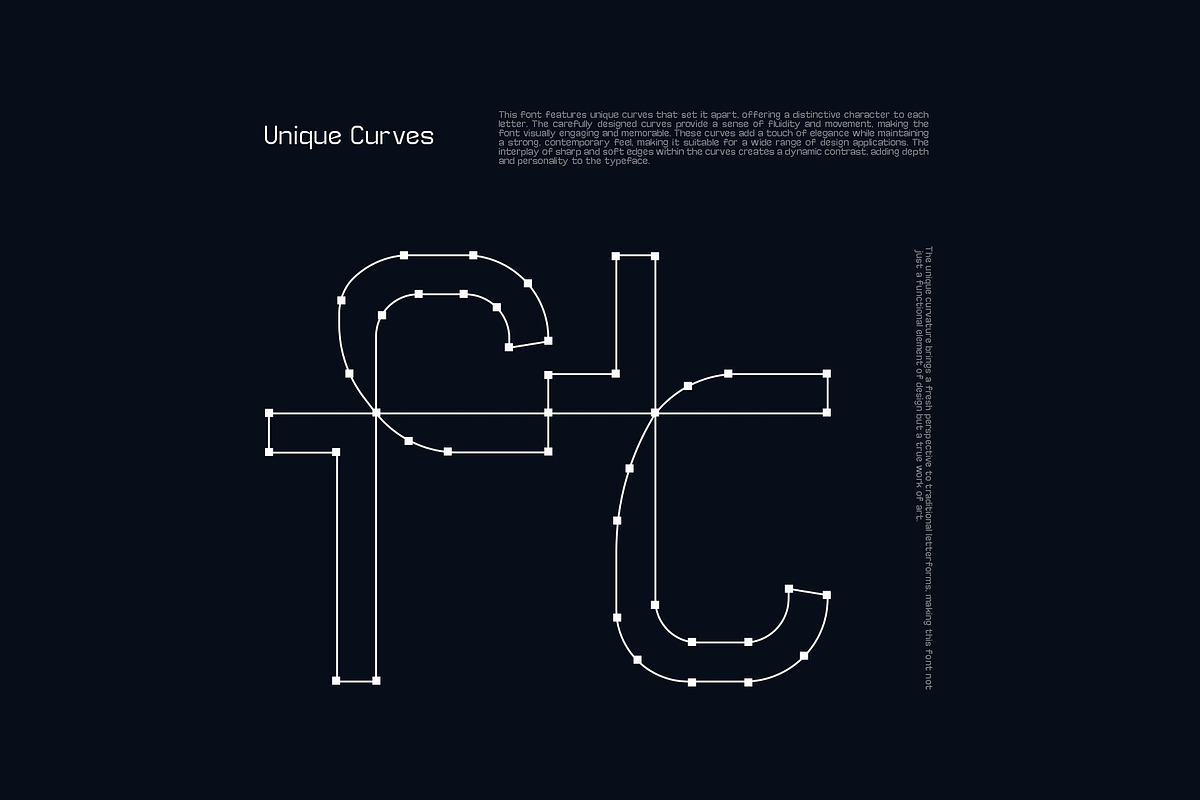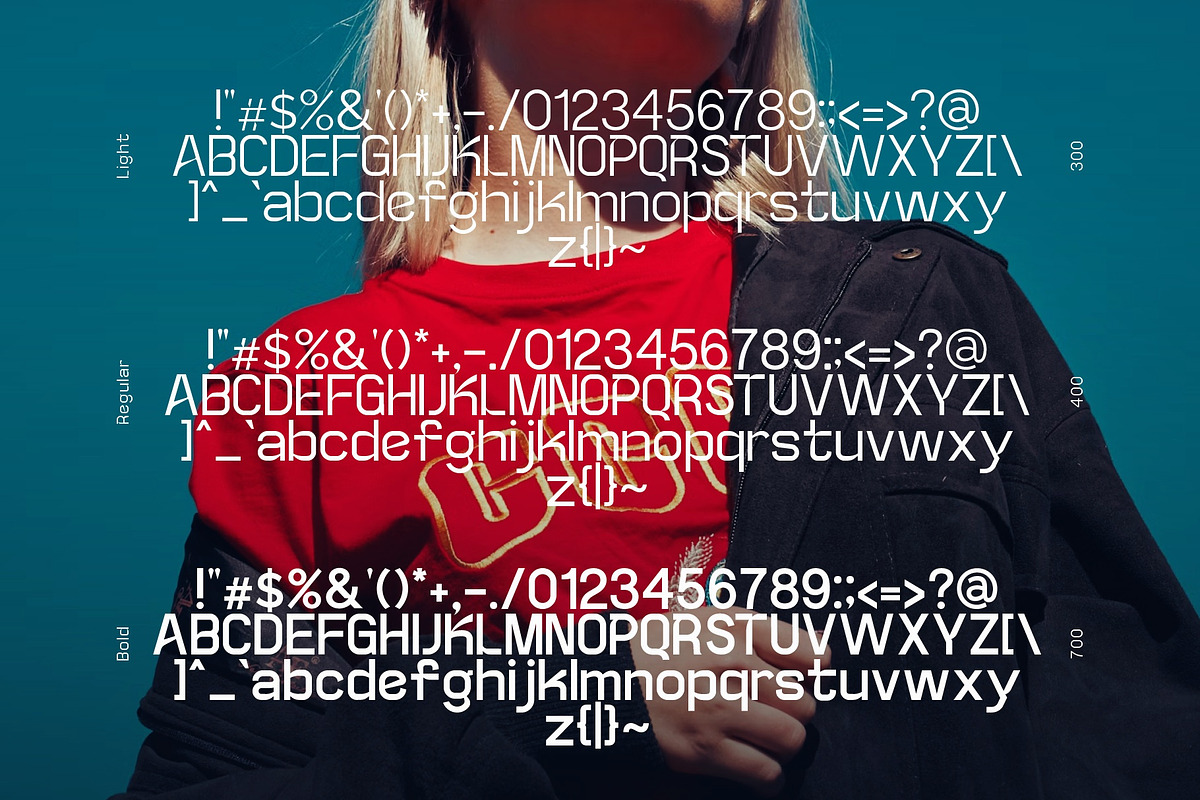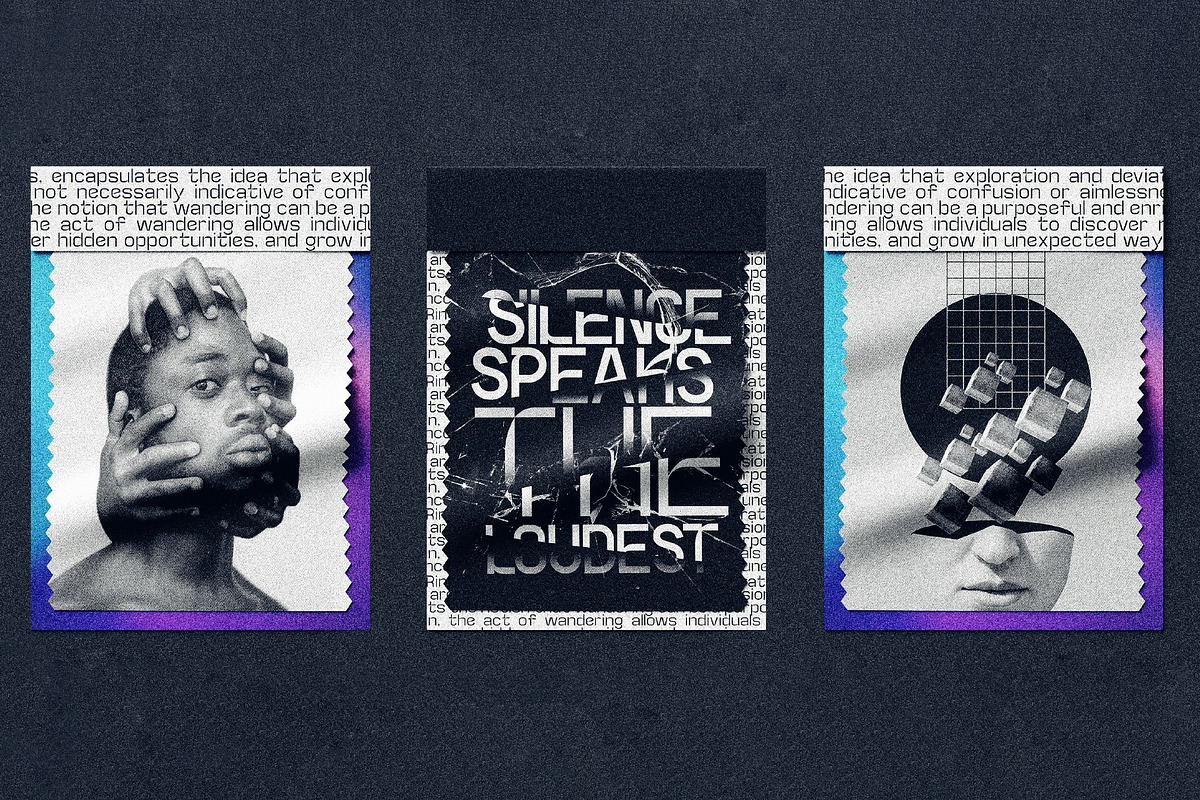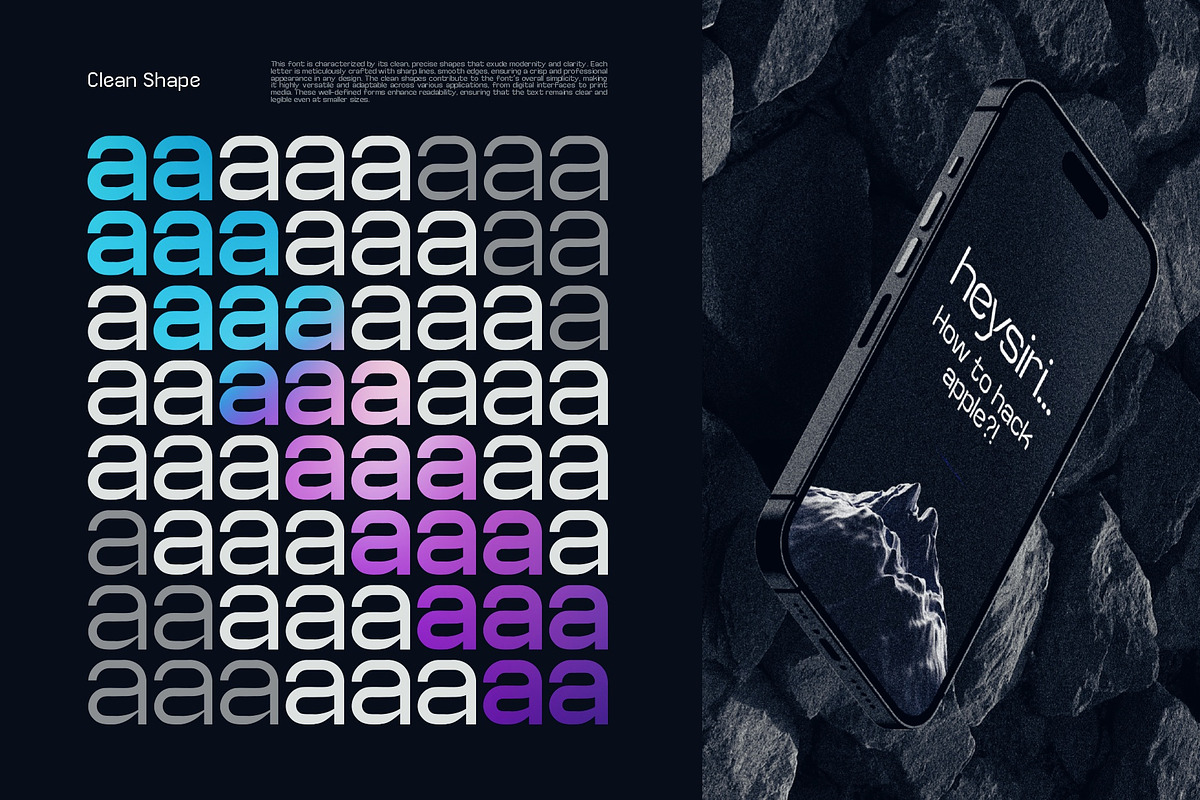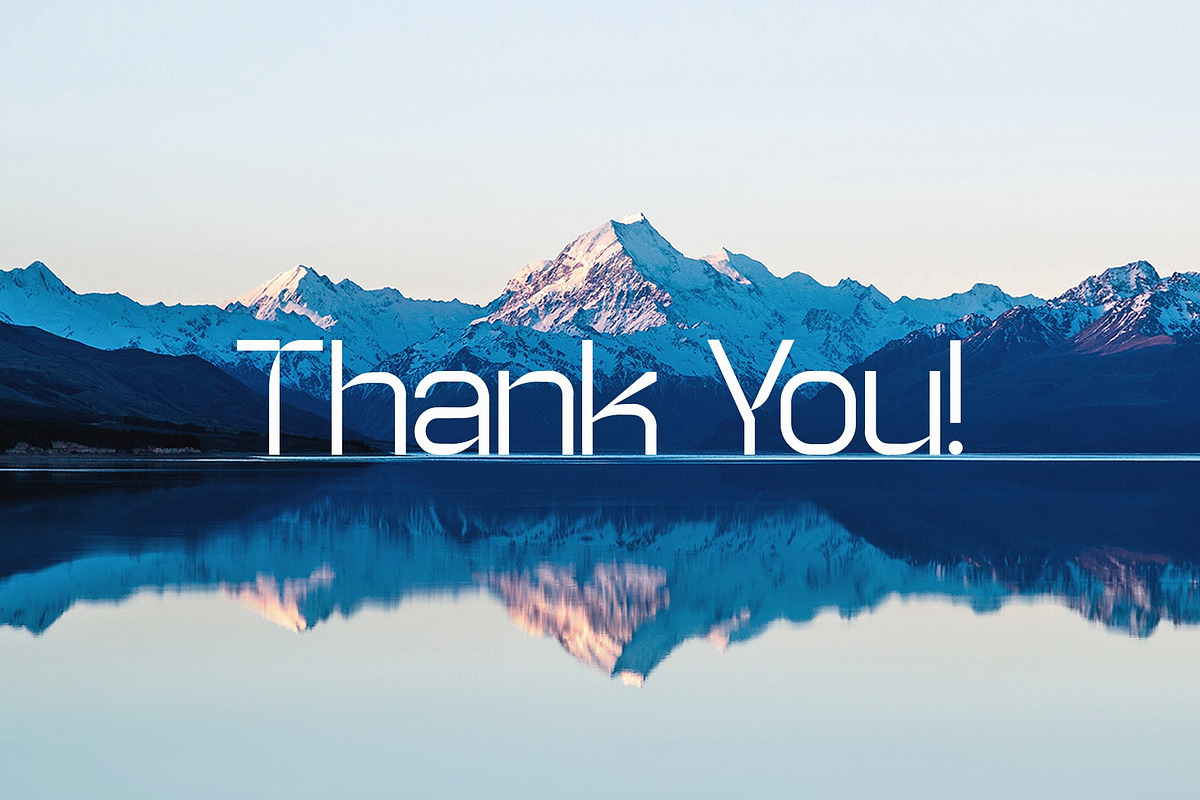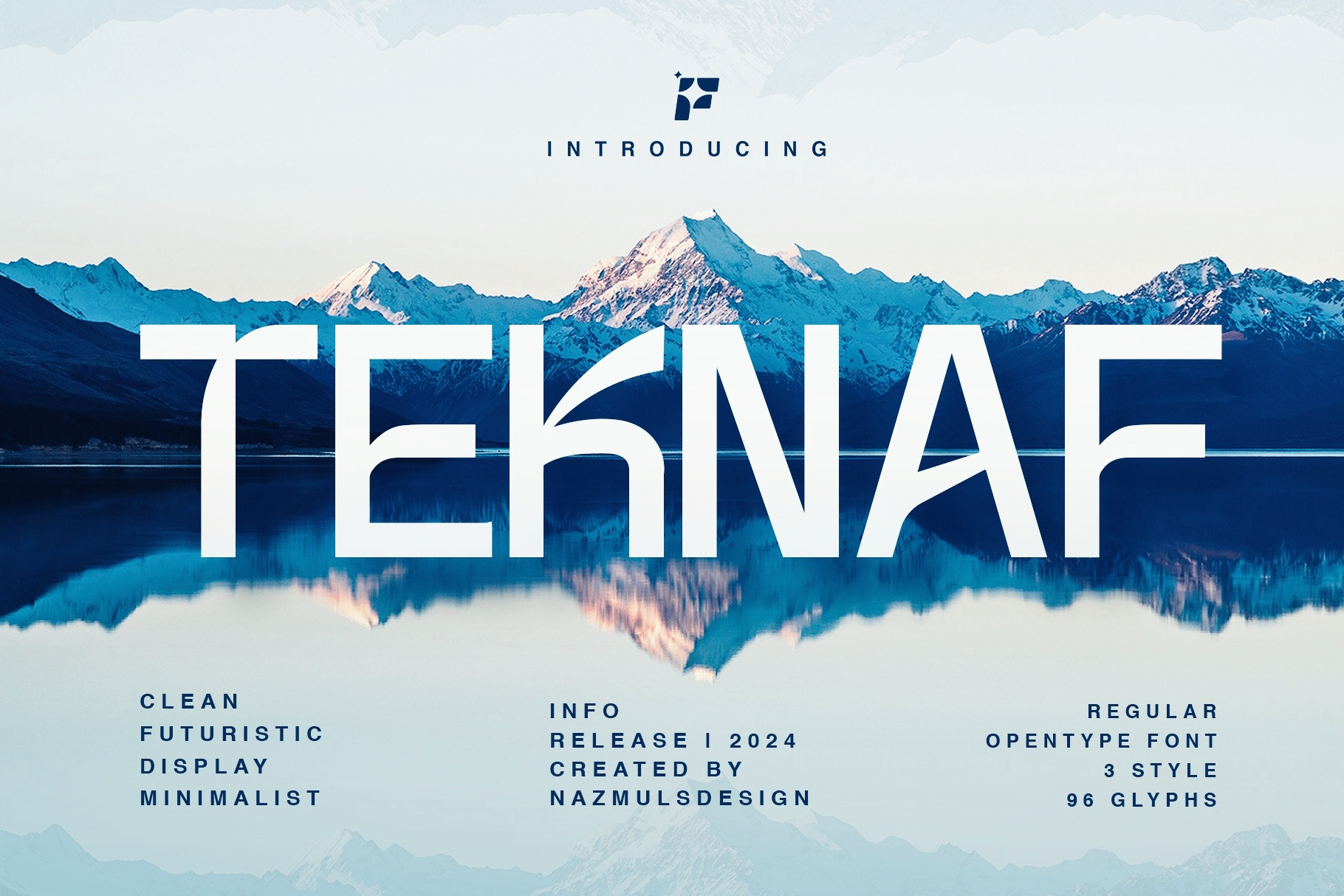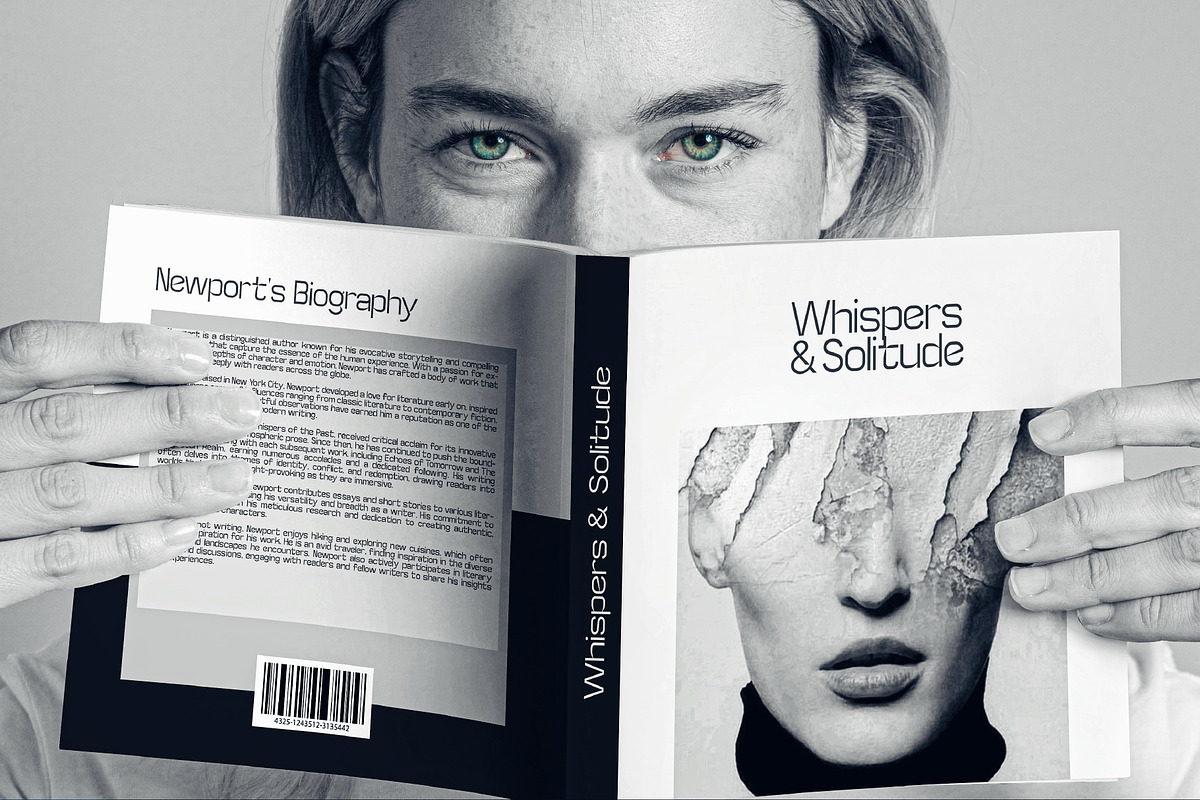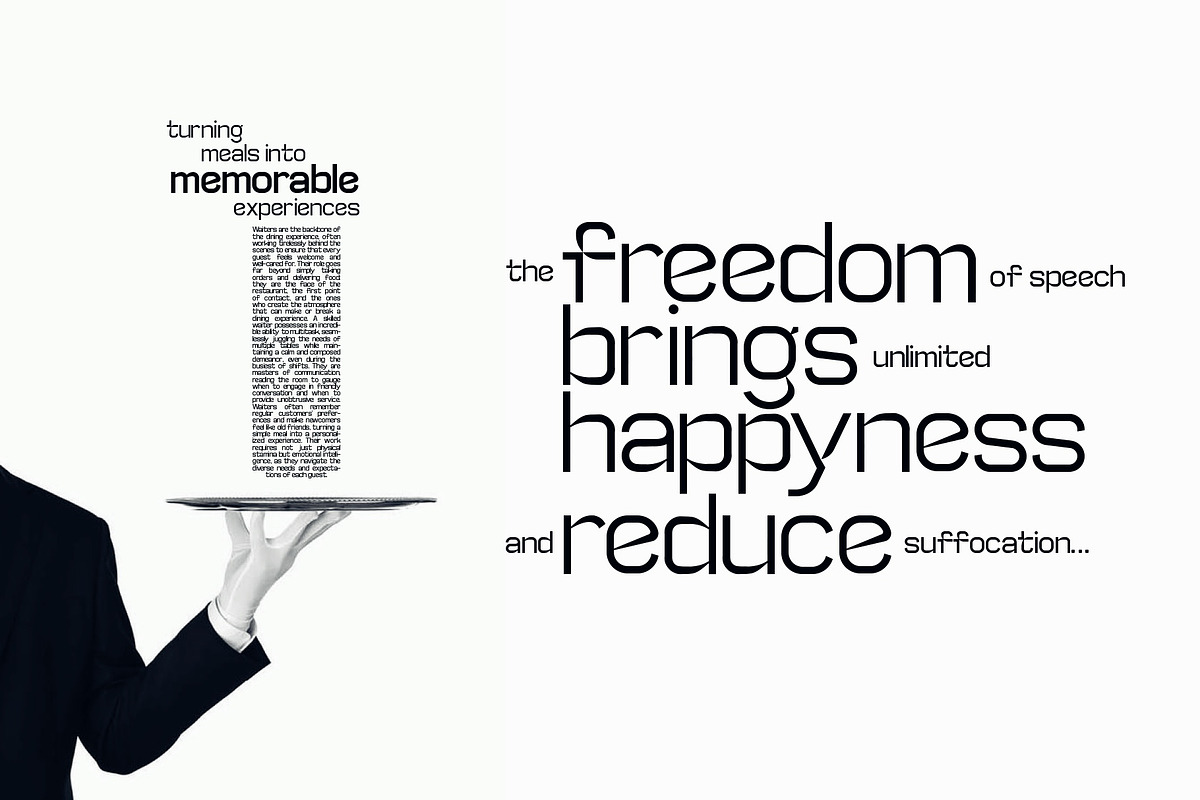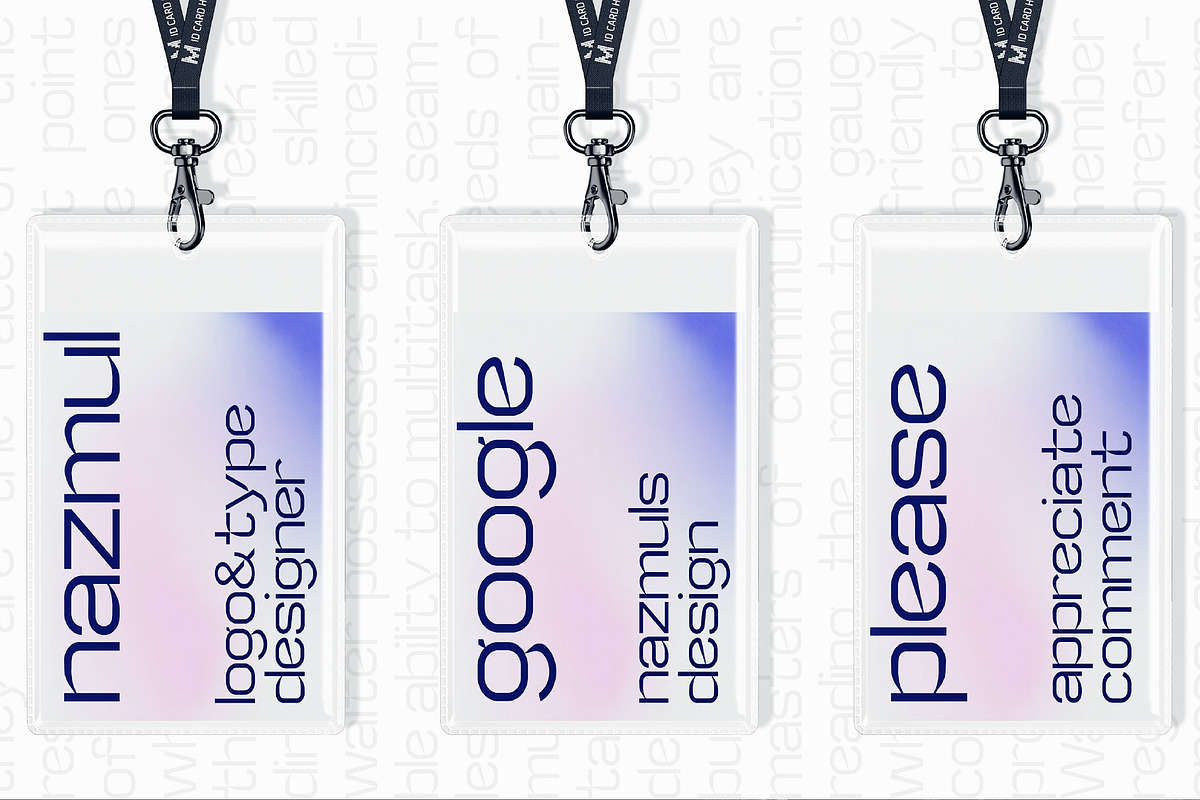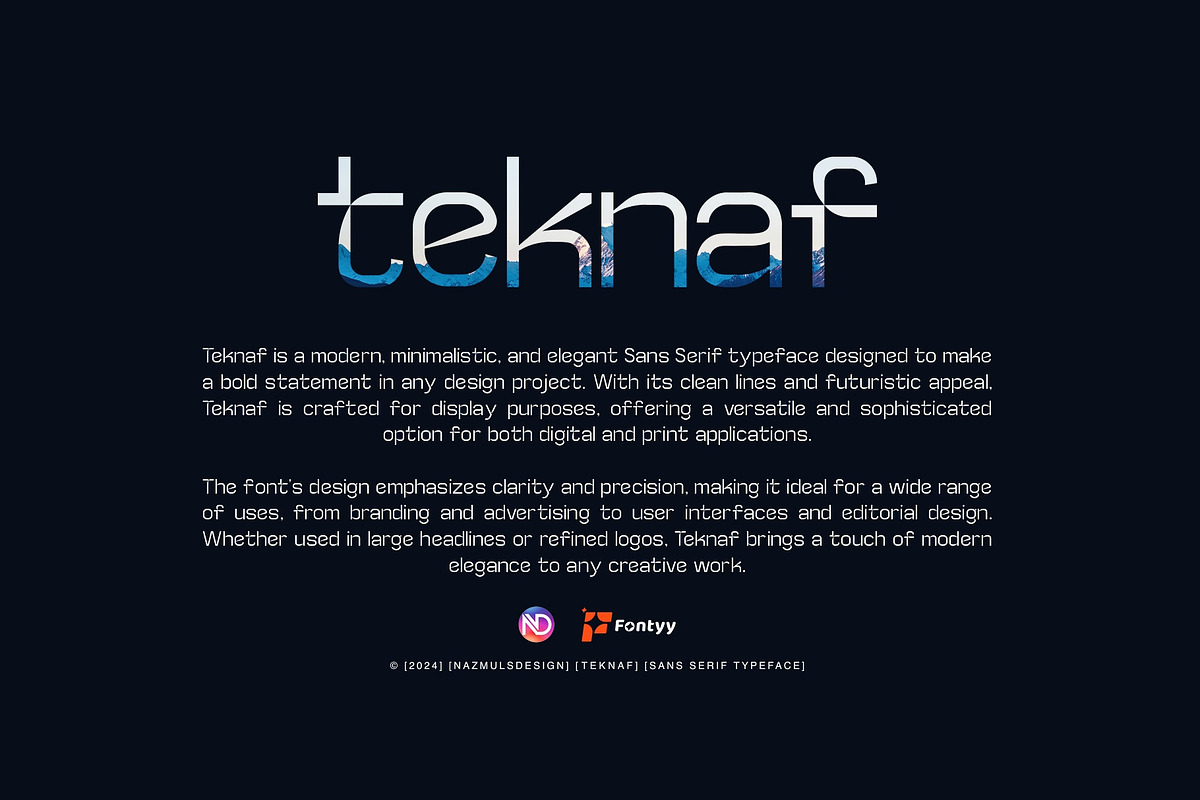
TEKNAF | Sans Serif Typeface
Introducing Teknaf, a modern and versatile typeface that seamlessly blends contemporary aesthetics with timeless elegance. This font is designed to capture attention and leave a lasting impression across a wide range of design projects. Perfect for websites, branding, or print, its balanced proportions and refined style make it an essential design choice. With its balanced proportions and meticulous detailing, Teknaf brings a touch of sophistication to every letterform.